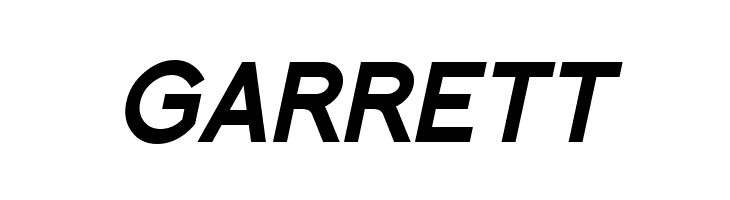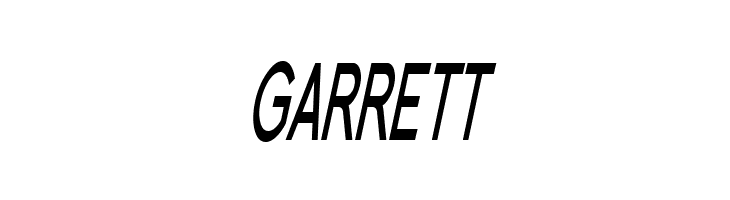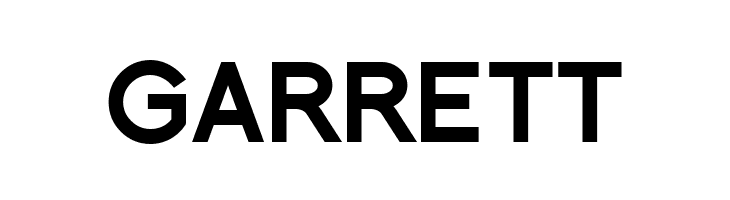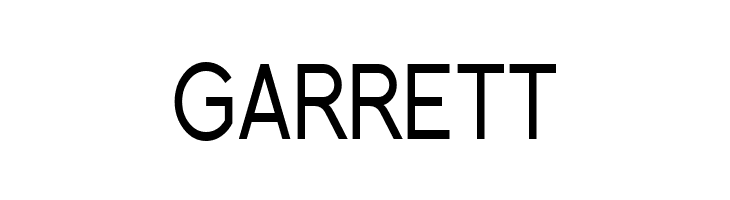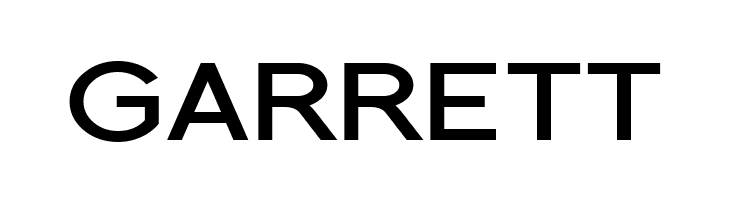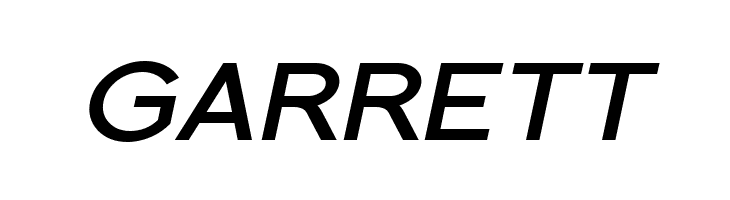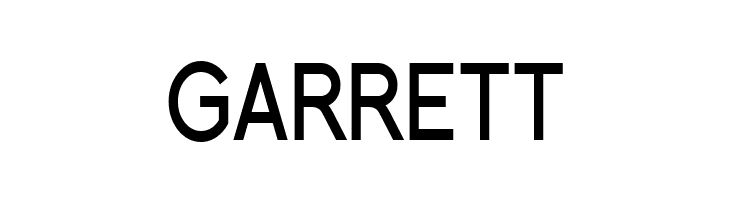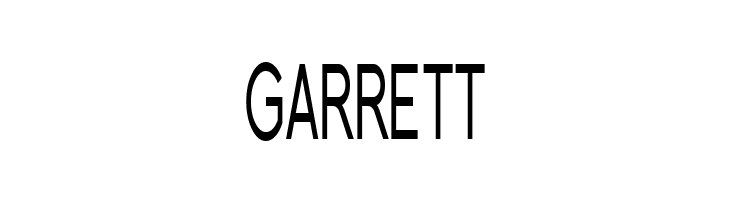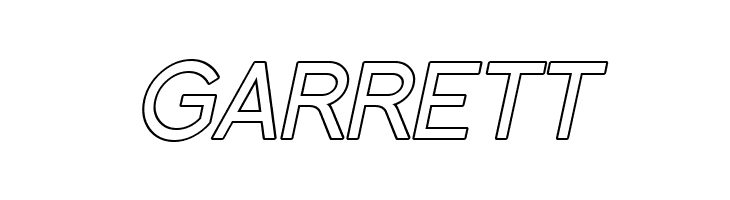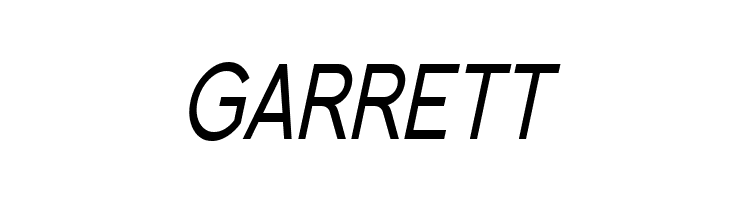
A bold, modern sans-serif font with clean lines and geometric structure.
A bold, italic sans-serif font with a modern and dynamic style.
A bold, modern sans-serif font with clean lines and uniform strokes.
A modern, bold, italic sans-serif font with a sleek and dynamic style.
A modern, geometric sans-serif font with uniform width and clear readability.
A bold, compact sans-serif font with a modern and clean design.
A modern sans-serif italic font with a sleek, dynamic style.
A modern, condensed sans-serif font with geometric influences.
A bold, condensed sans-serif font with a modern and clean design.
A modern, condensed sans-serif font with bold, italicized characters.
A modern, condensed, italic sans-serif font with clean lines and medium contrast.
A bold, modern sans-serif font with expanded width and high legibility.
A modern, bold, and italic sans-serif font with expanded width.
A modern, italic sans-serif font with an expanded width and clean lines.
A modern sans-serif italic font with a sleek and dynamic appearance.
A modern, outline sans-serif font with geometric influences and consistent line thickness.
A modern, italicized sans-serif font with an outline style.
A bold, italicized modern sans-serif font with a clean, geometric design.
A modern, italic sans-serif font with clean lines and balanced proportions.
A clean, modern sans-serif font with uniform strokes and high legibility.
A bold, modern sans-serif font with geometric shapes and consistent stroke widths.
A bold, modern sans-serif font with geometric influences and excellent readability.
A modern, tall, and narrow sans-serif font with clean lines and high legibility.
A bold, compact sans-serif font with a modern and impactful style.
A bold, italicized, and condensed font with a dynamic and strong appearance.
A modern, italic, condensed sans-serif font with uniform stroke width.
A modern, condensed sans-serif font with a clean and minimalist style.
A bold, condensed sans-serif font with a modern and clean appearance.
A sleek, modern, condensed bold italic font with tight spacing.
A modern, condensed sans-serif italic font with low contrast and uniform spacing.
A clean, modern sans-serif font with consistent stroke width and balanced spacing.